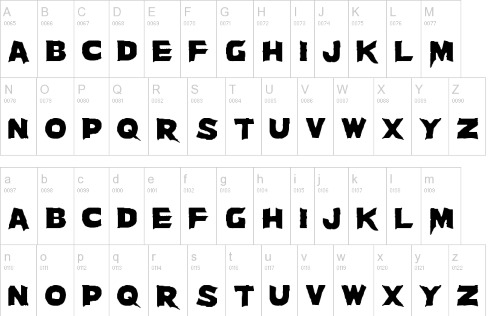
Massacre Font
Massacre Font is a horror-inspired display typeface featuring jagged, distorted letterforms and a dark, menacing personality. Its rough edges and chaotic structure make it perfect for thriller posters, Halloween designs, album covers, and spooky branding. Massacre delivers an intense, unsettling visual impact that instantly creates tension and drama.